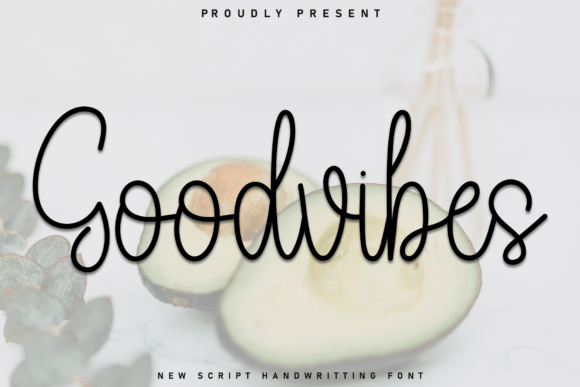
Introducing Goodvibes Font: The Ultimate Choice for Designers and Crafters
Are you tired of using the same old fonts for your designs? Look no further! Goodvibes Font is here to revolutionize your creative projects with its unique, handwritten style that’s reminiscent of a marker-drawn font. With its relaxed and sporty feel, Goodvibes is the perfect choice for designers and crafters who want to add a touch of luxury and elegance to their work, while still keeping it casual and laid-back.
What is Goodvibes Font?
Goodvibes Font is a beautifully crafted, handwritten font that’s designed to give your designs a personal and artistic touch. Its marker-like style gives it a distinctive look that’s both modern and sophisticated. Whether you’re working on a branding project, creating a logo, or designing wedding supplies, Goodvibes Font is the perfect choice to add a touch of elegance and whimsy to your work.
Key Features of Goodvibes Font
• Handwritten style: Goodvibes Font has a unique, handwritten style that’s reminiscent of a marker-drawn font.
• Relaxed and sporty feel: The font has a relaxed and sporty feel that’s perfect for designs that require a casual and laid-back touch.
• Luxurious and elegant: Despite its casual feel, Goodvibes Font still manages to convey a sense of luxury and elegance, making it perfect for high-end designs.
• Versatile: Goodvibes Font is versatile and can be used for a wide range of design projects, from branding and logos to wedding supplies and greeting cards.
Use Cases for Goodvibes Font
Goodvibes Font is perfect for a wide range of design projects, including:
• Branding: Use Goodvibes Font to create a unique and memorable brand identity that’s both modern and sophisticated.
• Logos: Create a stunning logo that stands out from the crowd with Goodvibes Font.
• Wedding supplies: Add a touch of elegance and whimsy to your wedding supplies, such as invitations, programs, and place cards.
• Greeting cards: Create beautiful and heartfelt greeting cards that will make your loved ones feel special.
• Fashion: Use Goodvibes Font to create stunning lookbooks, fashion magazines, and advertising campaigns.
• Marketing promotions: Add a touch of luxury and elegance to your marketing promotions, such as brochures, flyers, and posters.
Why Choose Goodvibes Font?
So, why choose Goodvibes Font over other fonts? Here are just a few reasons:
• Unique style: Goodvibes Font has a unique and distinctive style that’s sure to make your designs stand out from the crowd.
• Easy to read: Despite its handwritten style, Goodvibes Font is easy to read and understand, making it perfect for designs that require a clear and concise message.
• Versatile: Goodvibes Font is versatile and can be used for a wide range of design projects, from digital designs to print materials.
In conclusion, Goodvibes Font is the ultimate choice for designers and crafters who want to add a touch of luxury and elegance to their work, while still keeping it casual and laid-back. With its unique, handwritten style and relaxed and sporty feel, Goodvibes Font is perfect for a wide range of design projects, from branding and logos to wedding supplies and greeting cards. So why wait? Try Goodvibes Font today and take your designs to the next level!